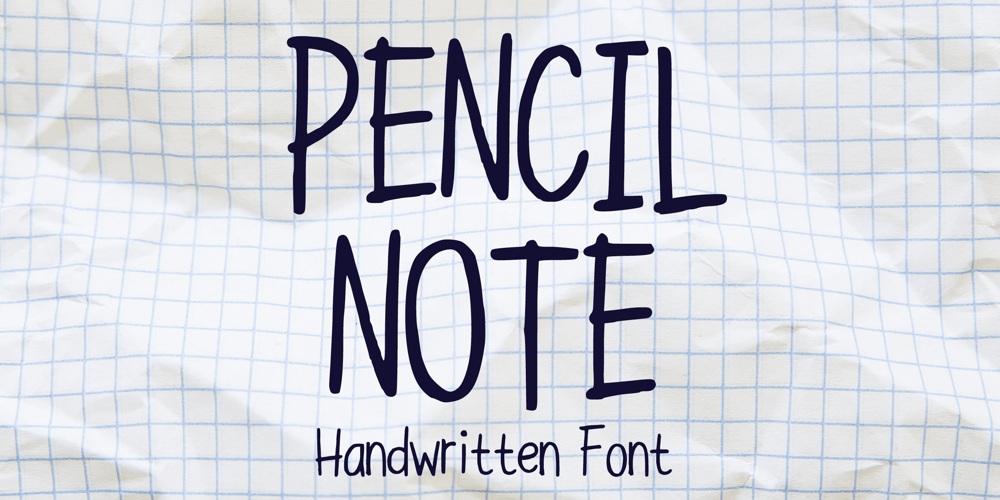
Pencil Note
Pencil Note font
Pencil Note Font Family was designed by Gabriel Valentinus and published by Mvmet. Pencil Note contains 1 styles and family package options. Pencil Note is a spontaneous fun handwritten font. It will elevate a wide range of design projects to the highest level. You can use this font for many design ideas such as stickers, t-shirt designs, amazing logo designs, magazine or book covers, comics, cartoon drawings, and many more. This font will add a super cool touch to your designs!